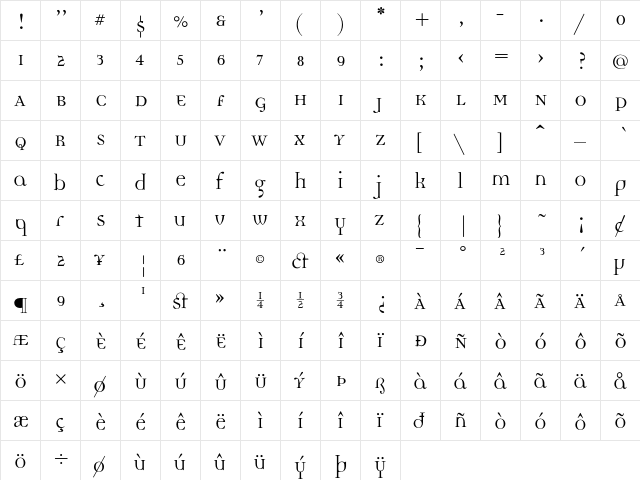
DemocraticaRegularLining Regular
Design Context for DemocraticaRegularLining Typeface
DemocraticaRegularLining offers clean, dependable letterforms without strong stylistic allegiance, making it a practical choice for designers who need flexibility.